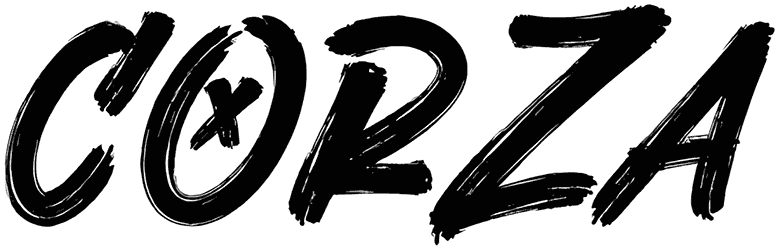
Sunrise International Font
Including handwritten characters in bold and natural structures that are without the lowercase edition, Sunrise International proves to be a very interesting marker font indeed.
With Sunrise International applied to your typography, there’s no need for your audience to read between the lines or anything to notice the contemporary and approachable tone of your text. Brilliant, right? So wait no more and use this wonderful font for designing social media covers, book titles, website graphics, and so on.
About this font:
The purpose is to convey the message in a straightforward manner. Consider Sunrise International a typeface for the worldwide awakening. Built in two different font style to charm the inattentive but without exaggerations on the structures.
Sunrise International – with bold brushstrokes and proper heights. The alternates are found on its uppercase form for your convenience. This Sans Serif is a quiet hustler.
Sunrise International Script – showcasing the most basic strokes of a script type. Not intended to override anything on your presentation. A brush script without any awkward emphasis.
May the font awaken you!
Designed by: The Branded Quotes